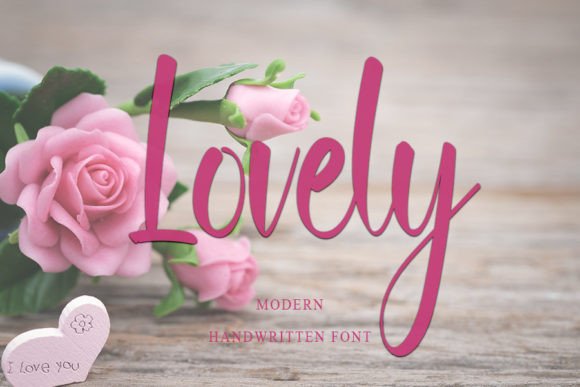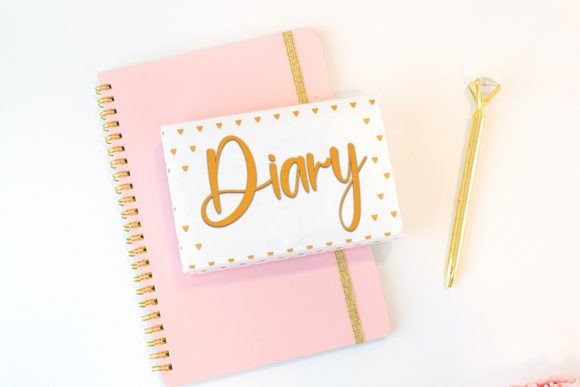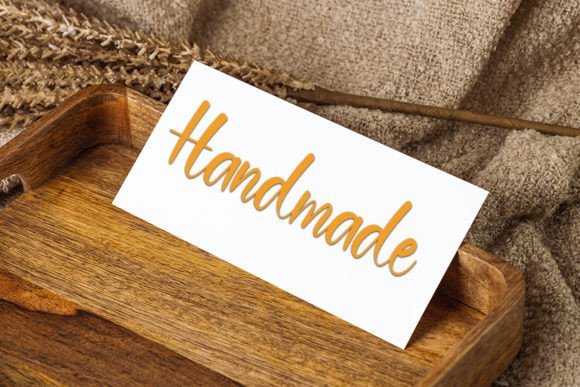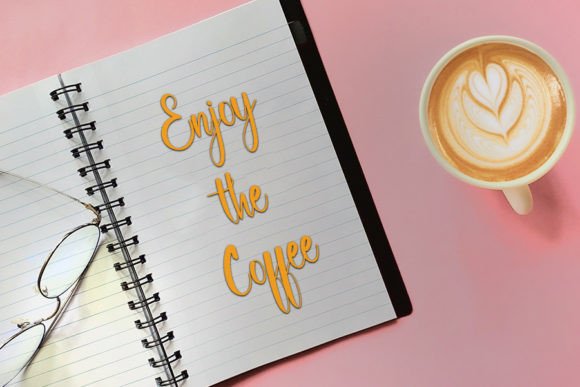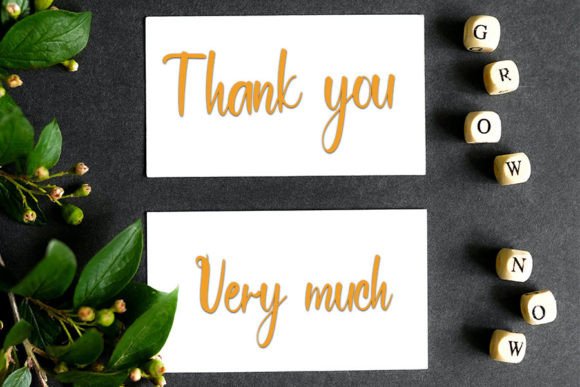
Lovely Font
“Lovely” is a charming handwritten font with a neat and elegant touch. Its distinct style exudes a sense of timelessness and sophistication, making it a wonderful choice for a wide range of design projects.
The elegance of Lovely makes it particularly well-suited for projects that require a refined and polished appearance. Whether you’re designing invitations, greeting cards, stationery, branding materials, or social media graphics, this font can add a touch of class and charm to your designs. Its versatile nature allows it to work seamlessly in various contexts.
One of the notable features of Lovely is its ability to convey a sense of personalization and warmth. It has a handcrafted feel that adds a friendly and inviting touch to your projects, making it ideal for creating designs that resonate with your audience.
The timeless quality of Lovely ensures that it can be used for a wide range of purposes, from formal occasions to casual and creative endeavors. It’s a versatile font that can adapt to different design requirements, making it a valuable addition to your font library.
Whether you’re aiming for a classic and elegant look or a more relaxed and approachable style, Lovelycan help you achieve your design goals. Its distinctiveness and timeless appeal make it a font that designers can fall in love with, and it’s sure to elevate the visual appeal of your projects.